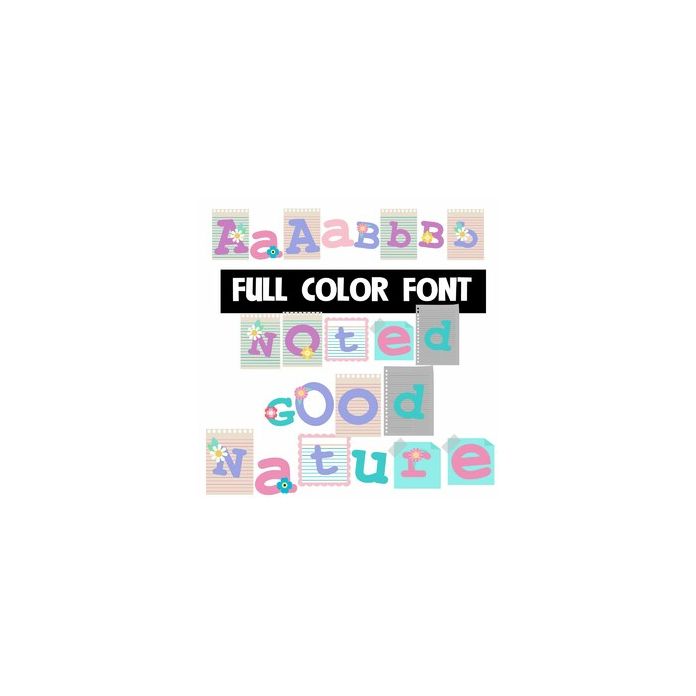
This full-color font features spring colors and flowers throughout. There is a second alt case w/ additional colors you can access throughout Silhouette's glyph map.